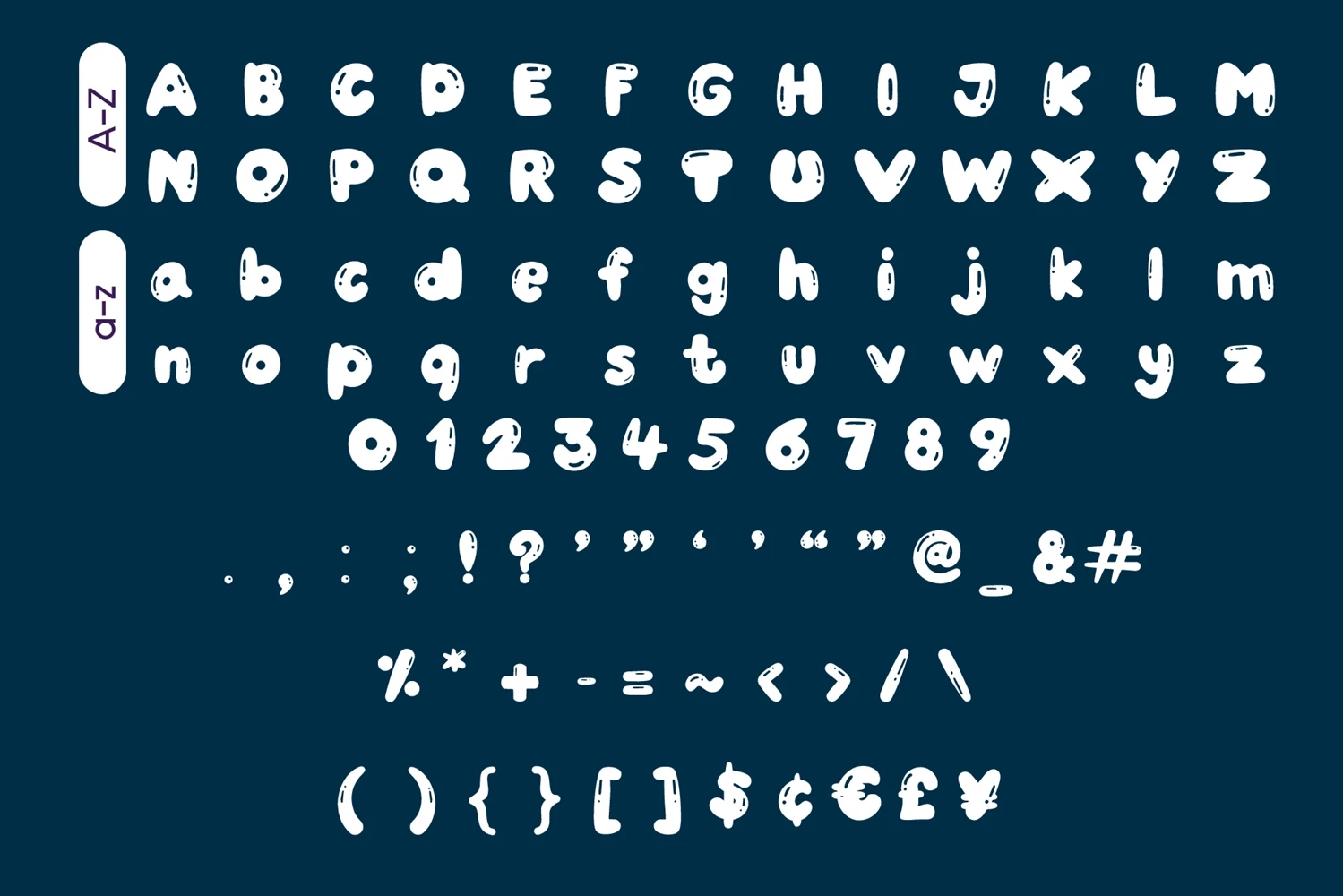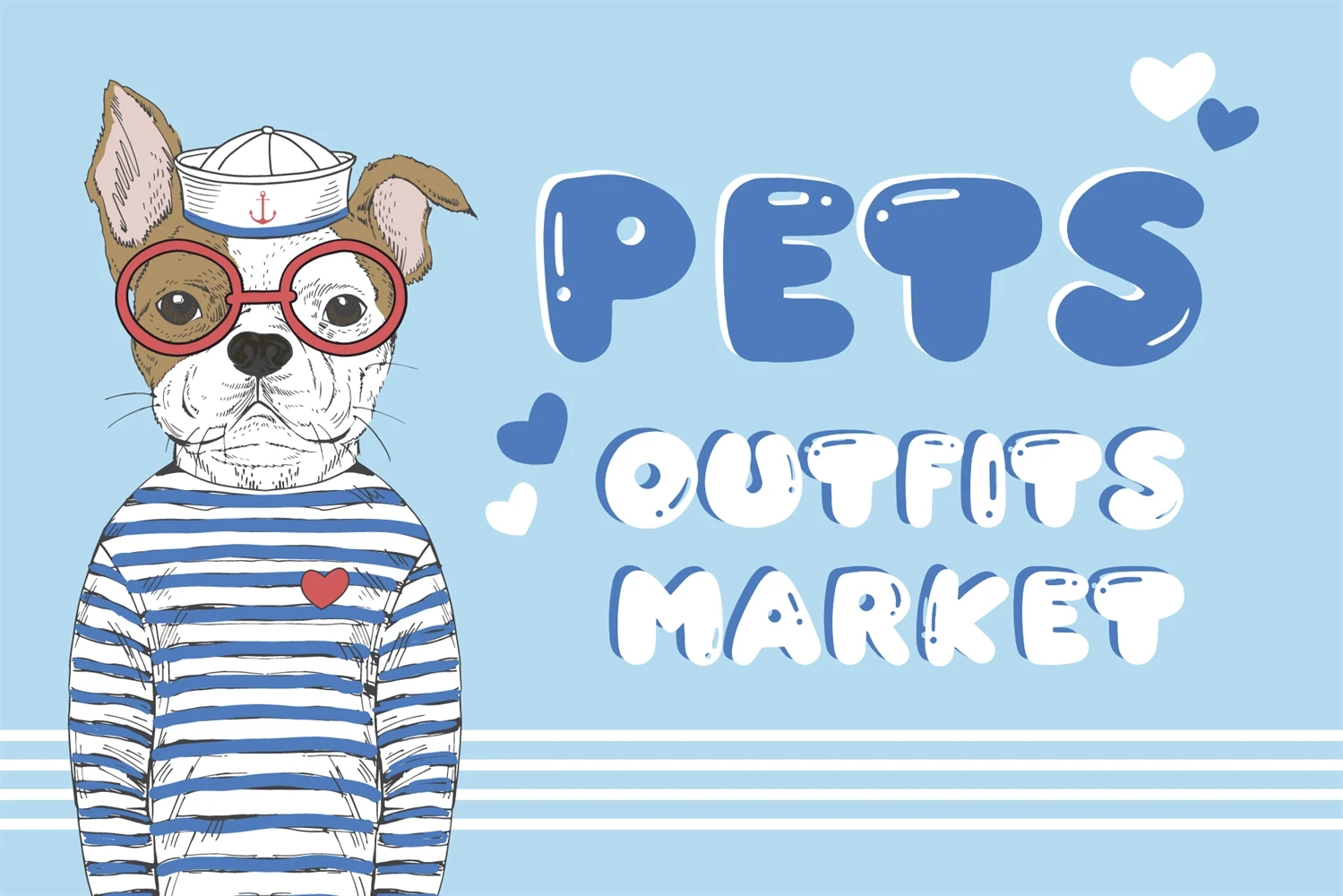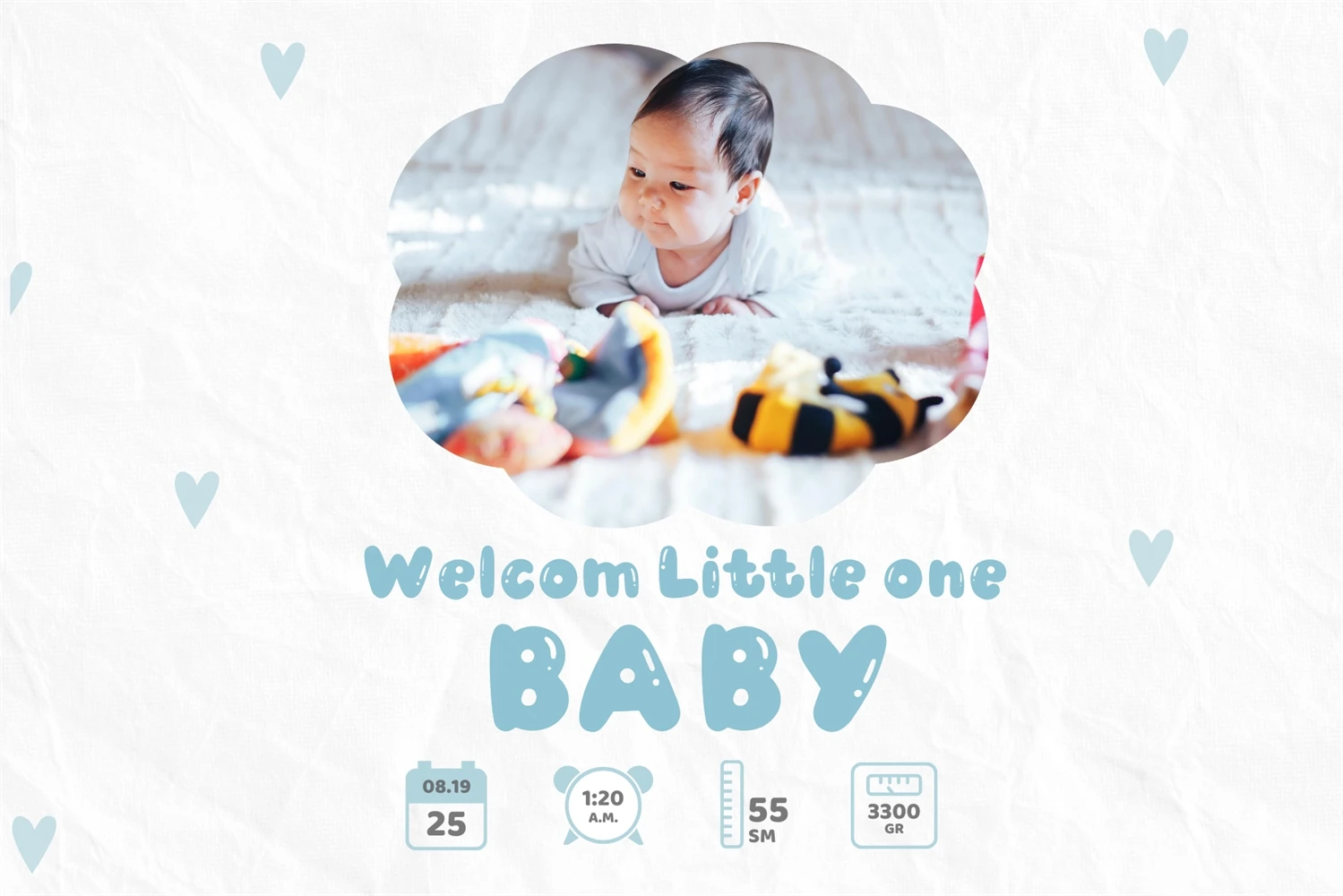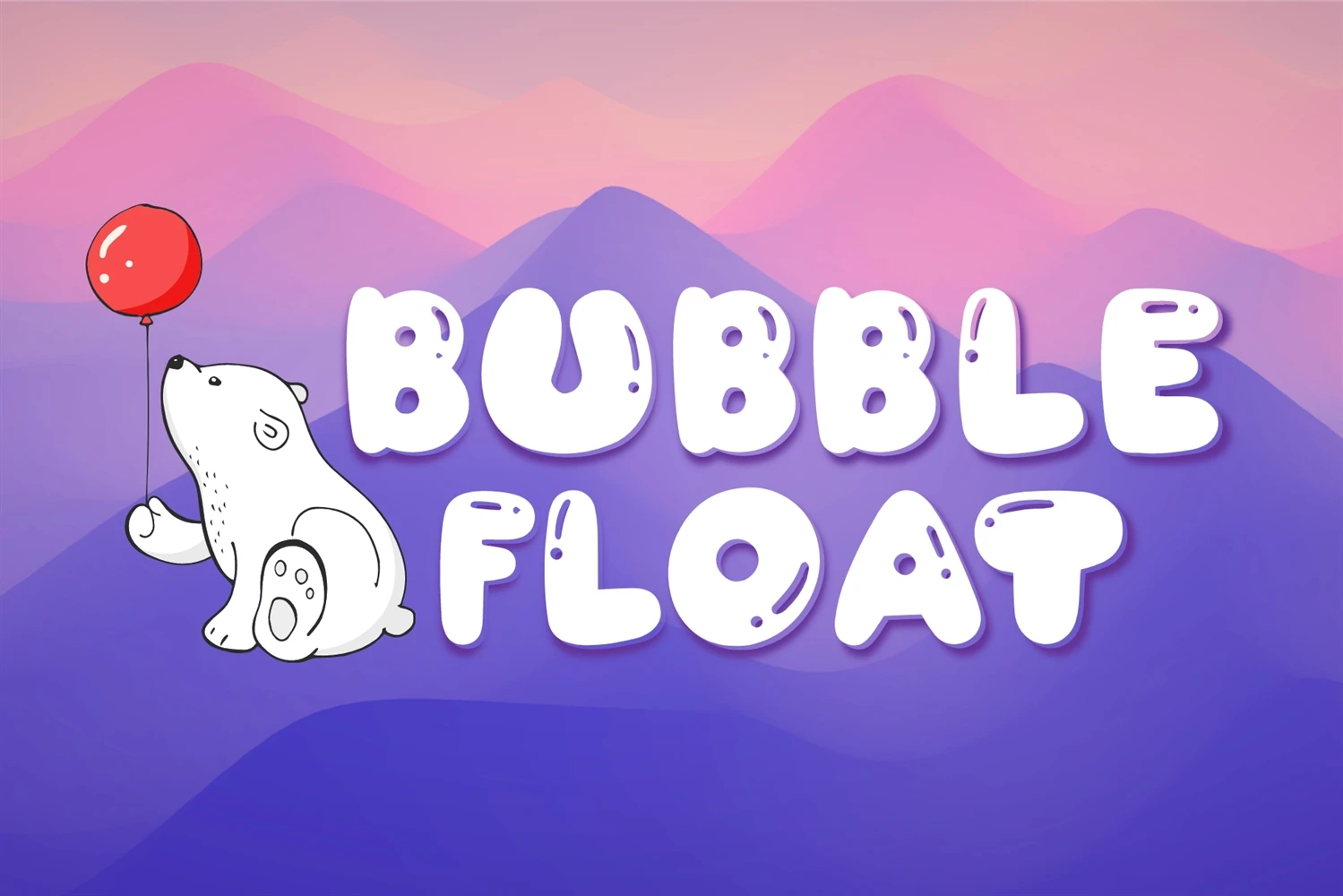
Bubble Float is a cute, easy-to-read and jolly display font. You can use this font in various projects, such as blog posts, logos, branding, ads, invitations, greeting cards, planners, photo albums, decorations and much more.